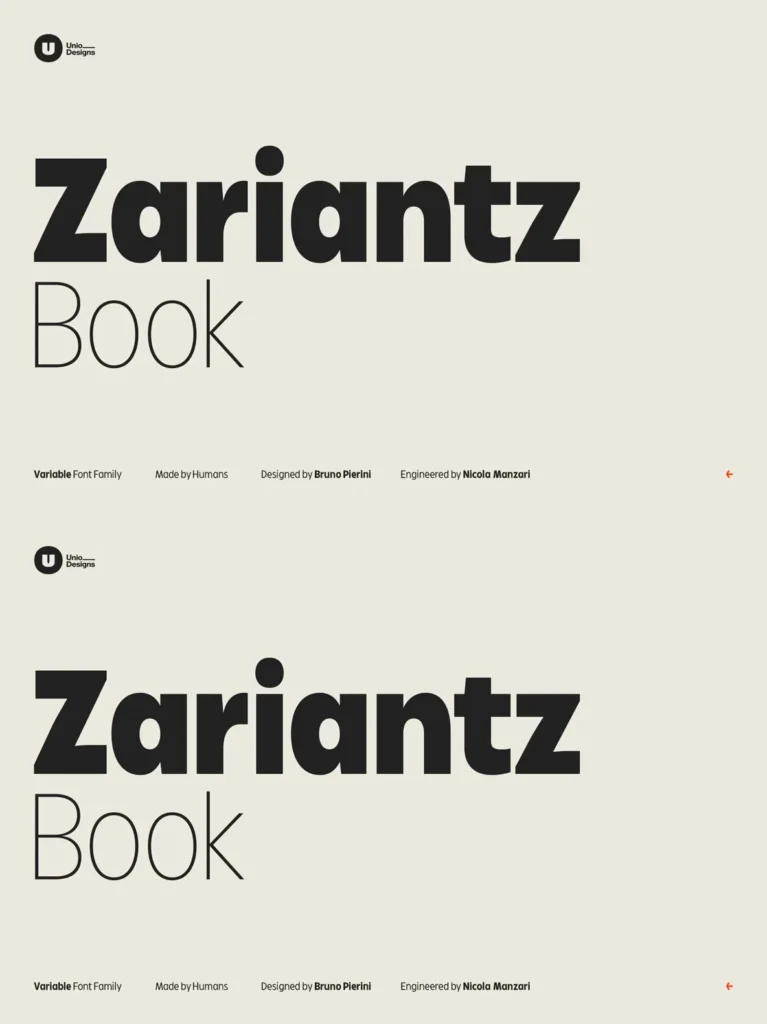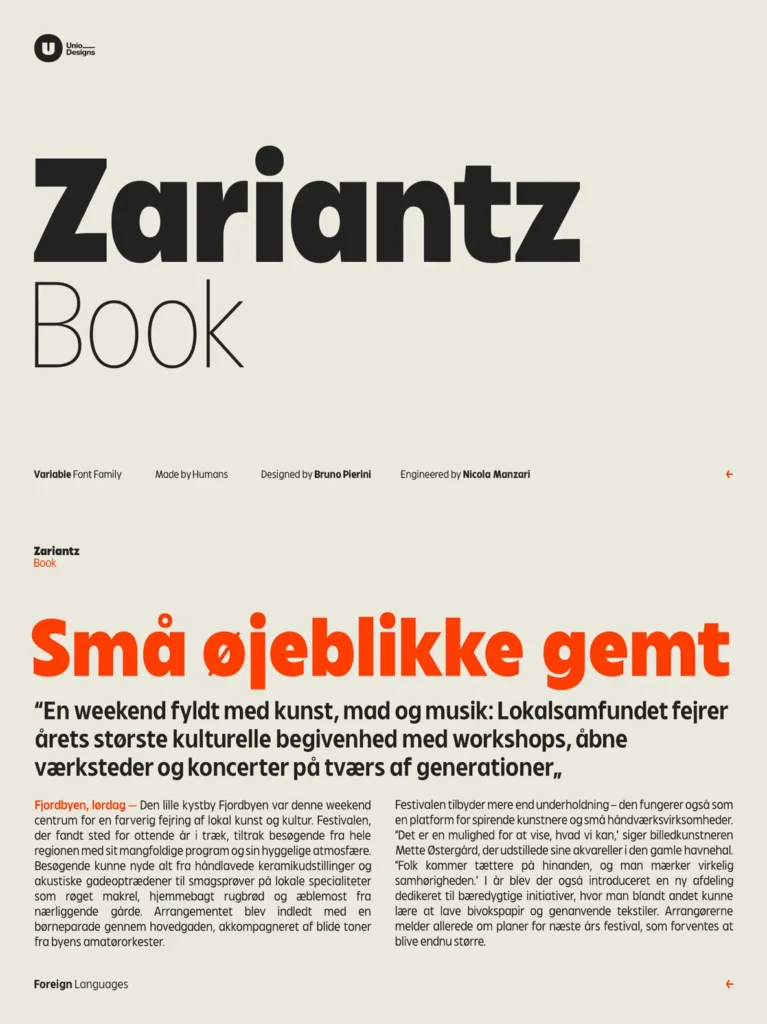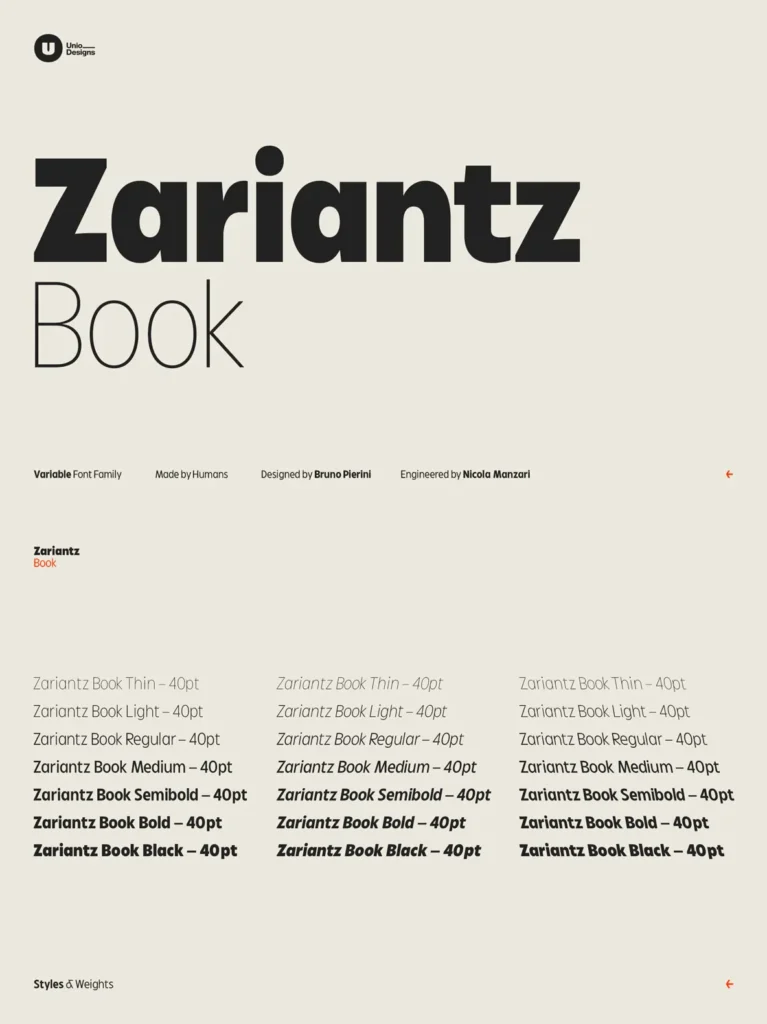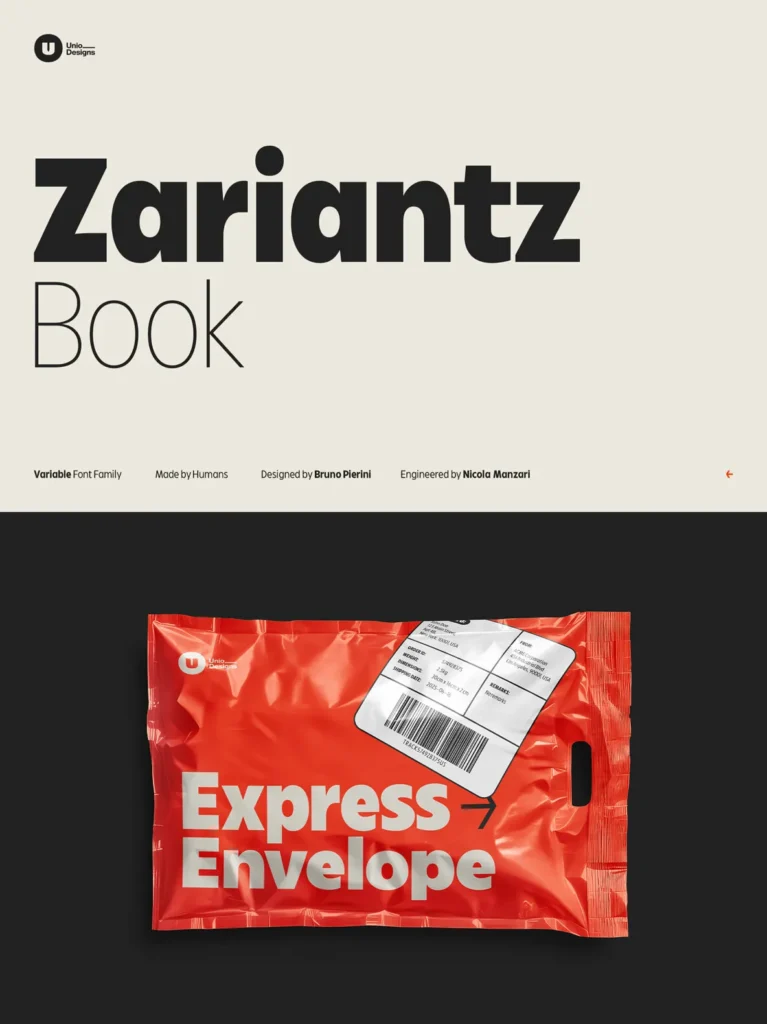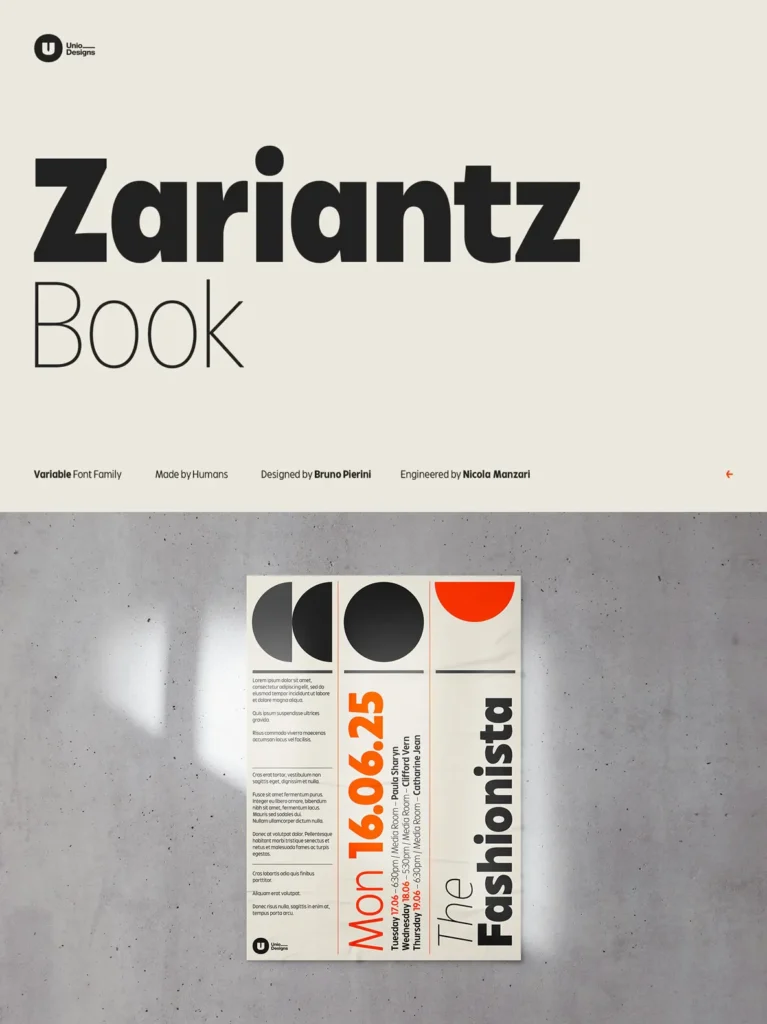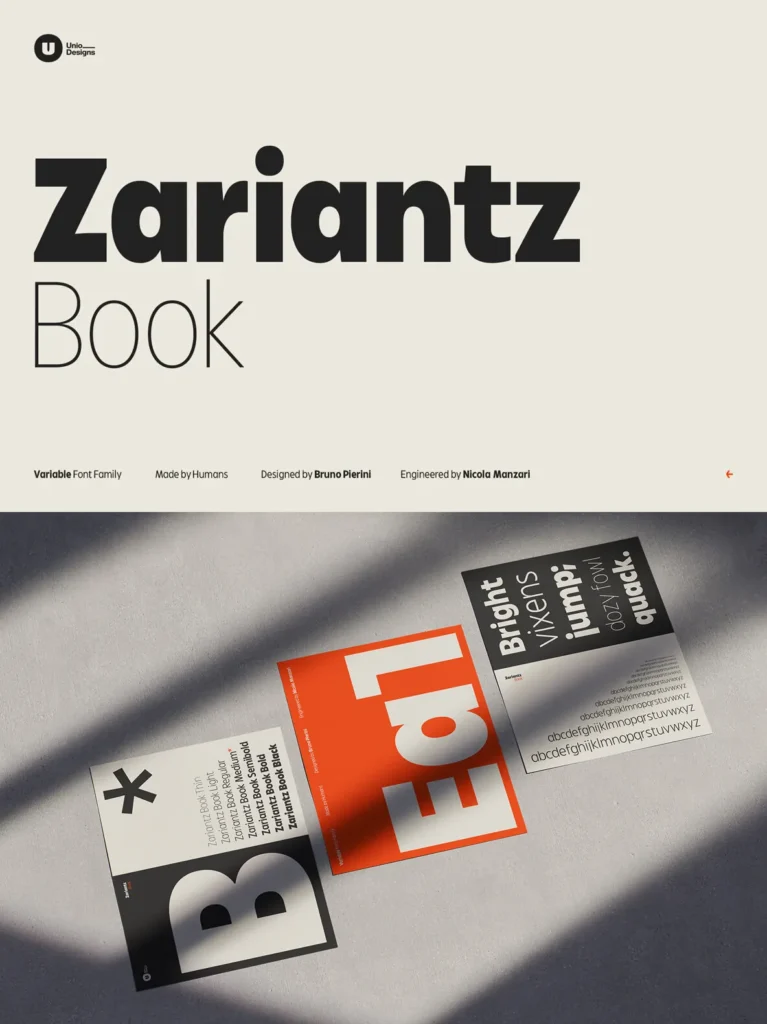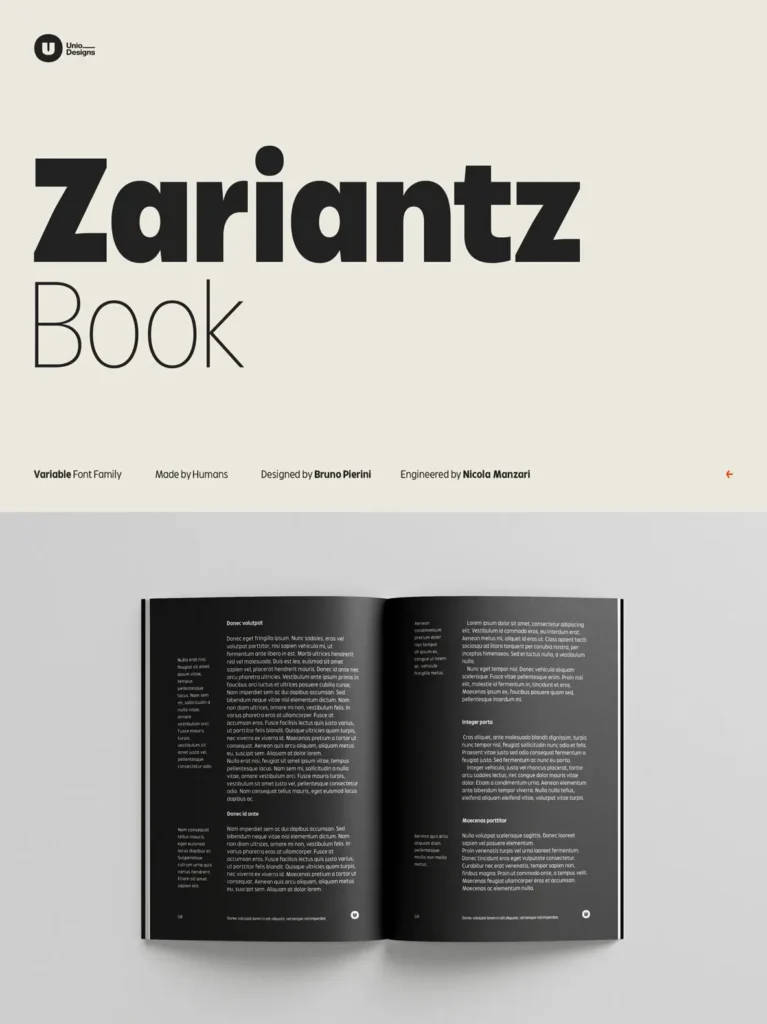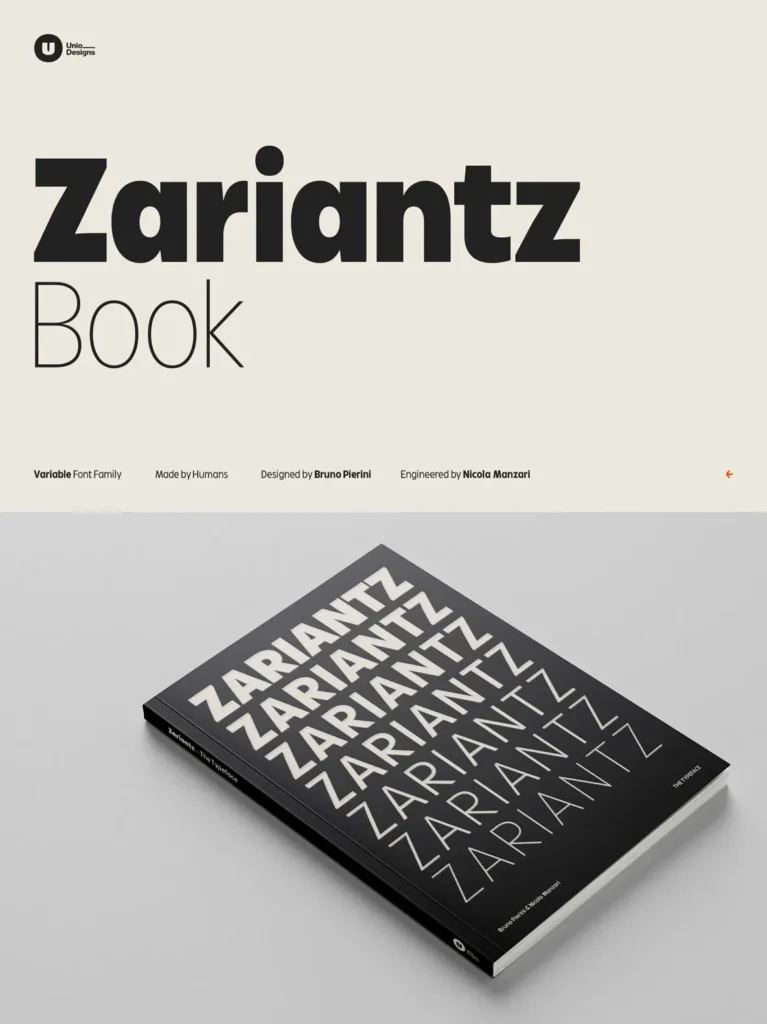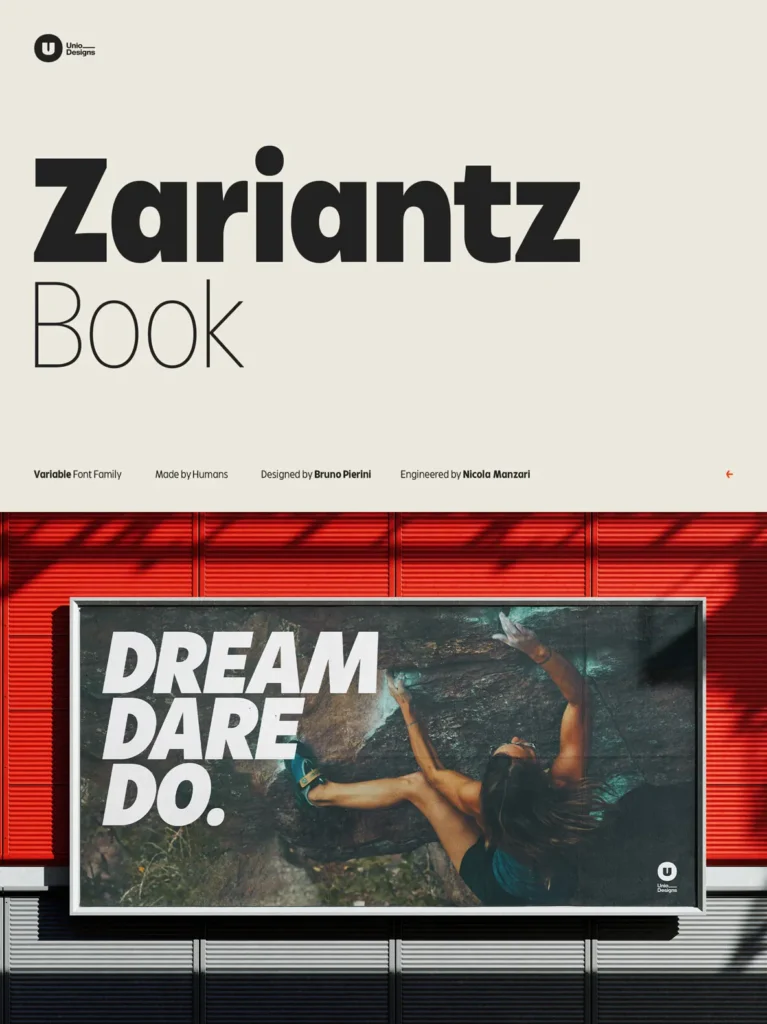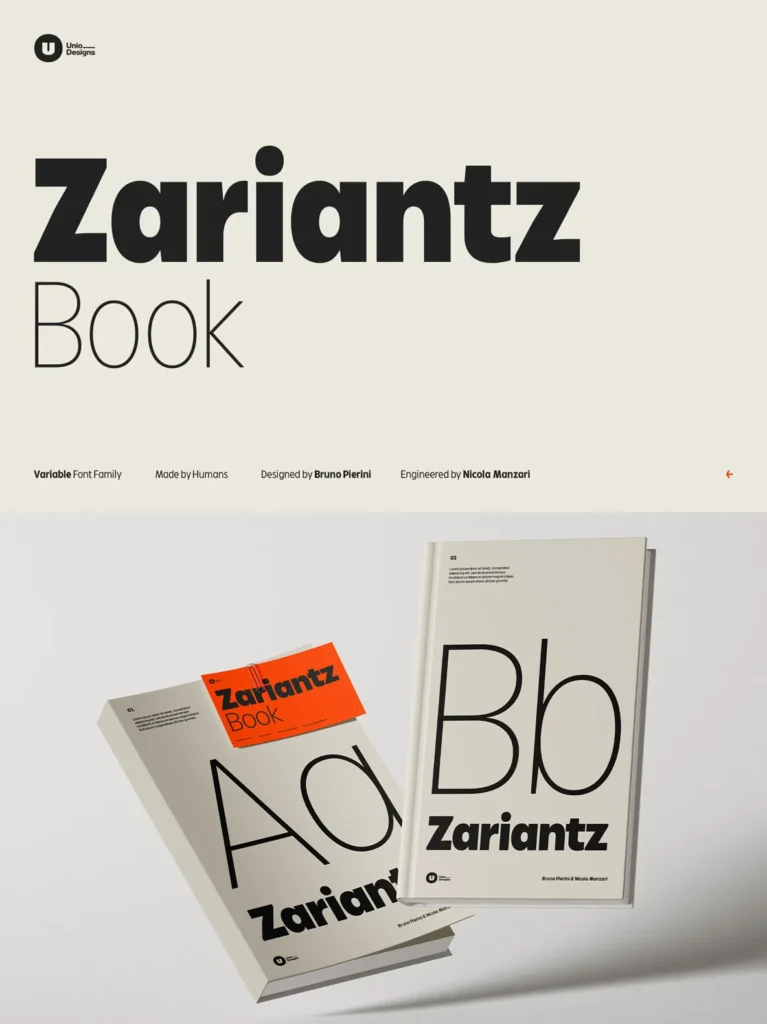
Zariantz Book — Clarity with Character
Zariantz Book is a versatile sans serif typeface known for clarity and precision, with expressive detailing that stays disciplined on the page. Built around a balanced book weight, it reads cleanly in long text while keeping a contemporary tone. Use it for editorial typography, UI copy, and digital layouts where consistency matters and letterforms need to hold up across sizes and screens.
Zariantz Book includodes an advanced OpenType toolkit for professional production. It supports old-style figures, case-sensitive forms, alternate glyphs, ligatures, and comprehensive multilingual language coverage. You can set fractions with numerators and denominators, and add distinctive multidirectional arrows to bring structure and direction to complex layouts.
This release extends the Zariantz family, first introduced with Zariantz Grotesk Variable—a condensed sans serif inspired by the streets of Casamassima, Puglia. Where Grotesk delivered narrow impact, Zariantz Book broadens the rhythm with balance, readability, and a humanist-driven approach suited to branding, publishing, and interface design.